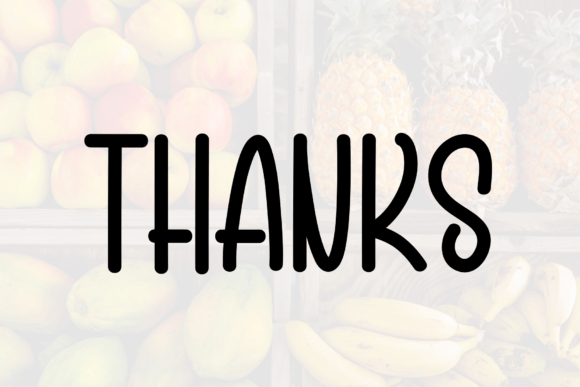
Introduction to Freshjuice Font
As designers, we’ve all been there – staring at a blank canvas, desperately searching for that perfect font to bring our creative project to life. It’s a moment of pure bliss when we stumble upon a hidden gem that elevates our design to the next level. For me, that moment came when I discovered the Freshjuice Font – a sweet and beautiful handwritten font that adds a cozy accent to any design project.
What I love about the Freshjuice Font is its unique, high-quality design that features characters dancing along the baseline. This attention to detail makes it a valuable resource for designers looking to add a touch of whimsy and personality to their work. With its transparent background and free download option, it’s an absolute must-have in any designer’s arsenal.
Key Features of Freshjuice Font
- Unique, hand-drawn design with a modern twist, ideal for creative projects and branding
- Suitable for a variety of creative projects, including logos, typography-based art, and editorial design, thanks to its versatility and high-quality design
Honest Review: Freshjuice Font
As a designer, I’m always on the lookout for high-quality design resources to elevate my creative projects. Recently, I stumbled upon the Freshjuice Font, and I must say, it’s been a game-changer for me.
- ✨ Beautiful, modern design that’s perfect for any creative project
- ✨ High quality font that’s ideal for digital and print use
However, as with any design resource, there are some limitations to consider:
- ⚠️ Limited character set, which may not be suitable for all design projects
- ⚠️ Some users may find the font too bold or overwhelming
Overall, I’m really impressed with the Freshjuice Font. Its modern design and high-quality feel make it an excellent addition to any designer’s toolkit. With its free download and transparent background, it’s a valuable resource that’s definitely worth exploring.
Common Use Cases for Freshjuice Font
The Freshjuice Font is perfect for:
Creating social media posts and graphics.
Designing presentations and reports.
Adding a touch of creativity to your marketing materials.